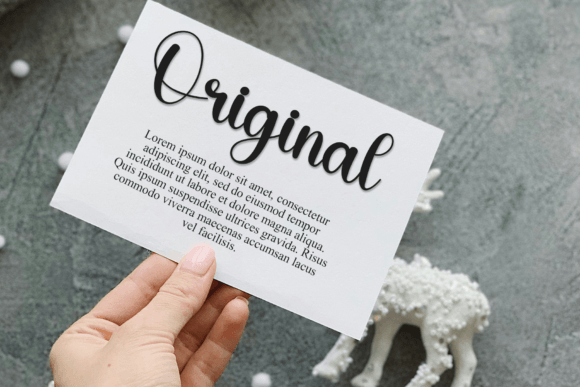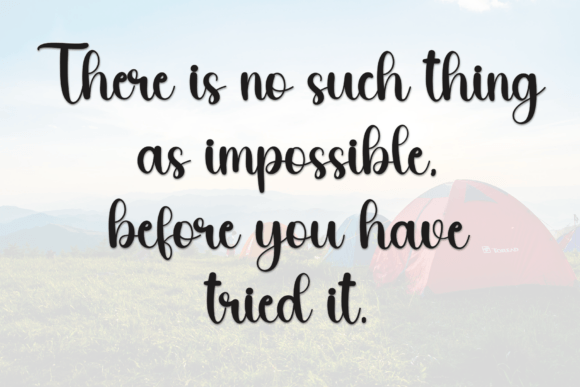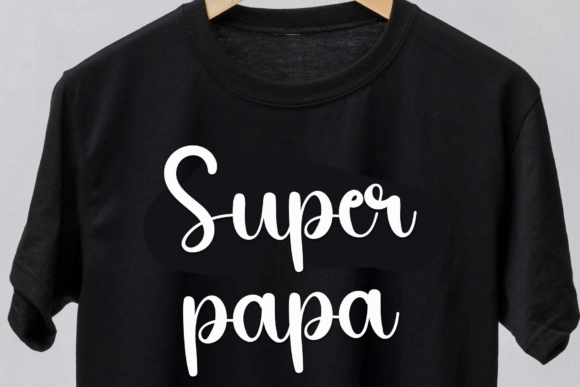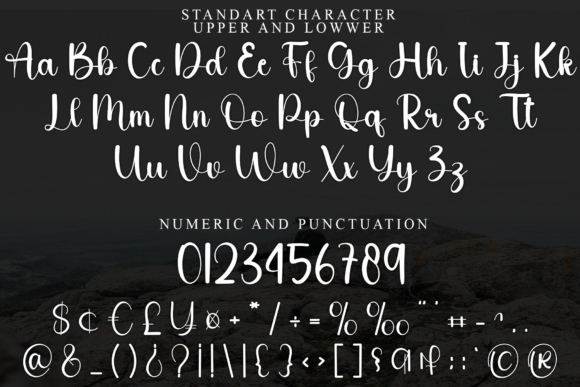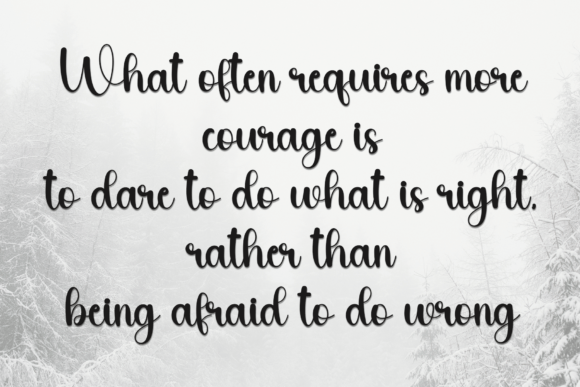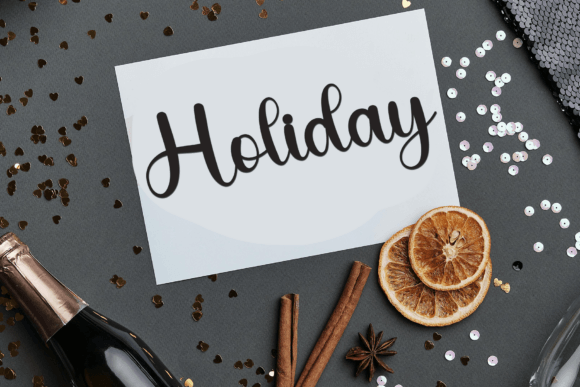
Introduction to Practice Font
Have you ever stared at a blank canvas, searching for the perfect font to bring your creative vision to life? It’s that moment when the right design resource can make all the difference. As designers, we’ve all been there – pouring over font options, hoping to find the one that captures the essence of our project. That’s where the Practice Font comes in – a beautiful, eye-catching font that’s designed to add a soft, unique touch to any creative project.
With its distinctive strokes and versatility, the Practice Font is a valuable addition to any designer’s toolkit. Whether you’re working on a design project, crafting a unique piece, or simply looking for a high-quality font to enhance your designs, the Practice Font is an ideal choice.
Key Features of Practice Font
- High-quality design: Practice Font is crafted with precision and care, ensuring a professional look for your designs.
- Unique characteristics: Practice Font’s unique design elements and creative flair make it an ideal choice for designers looking to add a personal touch to their work.
Honest Review: Practice Font
As a designer, I’m always on the lookout for high-quality fonts to enhance my creative projects. The Practice Font caught my eye due to its sleek and modern aesthetic, making it a perfect addition to any design resource.
- High-quality glyphs with crisp lines and clean edges
- Comprehensive character set, supporting a wide range of languages
- Some characters may appear slightly pixelated at larger font sizes
- Lack of bold or italic font weights, limiting its versatility
Overall, I’m impressed with the Practice Font’s potential to elevate my designs. While it may not be perfect, its strengths outweigh its limitations. If you’re looking for a clean and modern font for your creative project, the Practice Font is definitely worth considering.
Tips for Getting the Most Out of Practice Font
The Practice Font is ideal for use in a variety of creative projects, including social media graphics, posters, and presentations. Its high-quality design and transparent background make it a versatile resource for designers and non-designers alike.
Is Practice Font a high-quality design resource?
Yes, Practice Font is a high-quality design resource, carefully crafted to meet the needs of designers working on creative projects. Its clean and modern design makes it an excellent choice for a wide range of applications, from print to digital media.